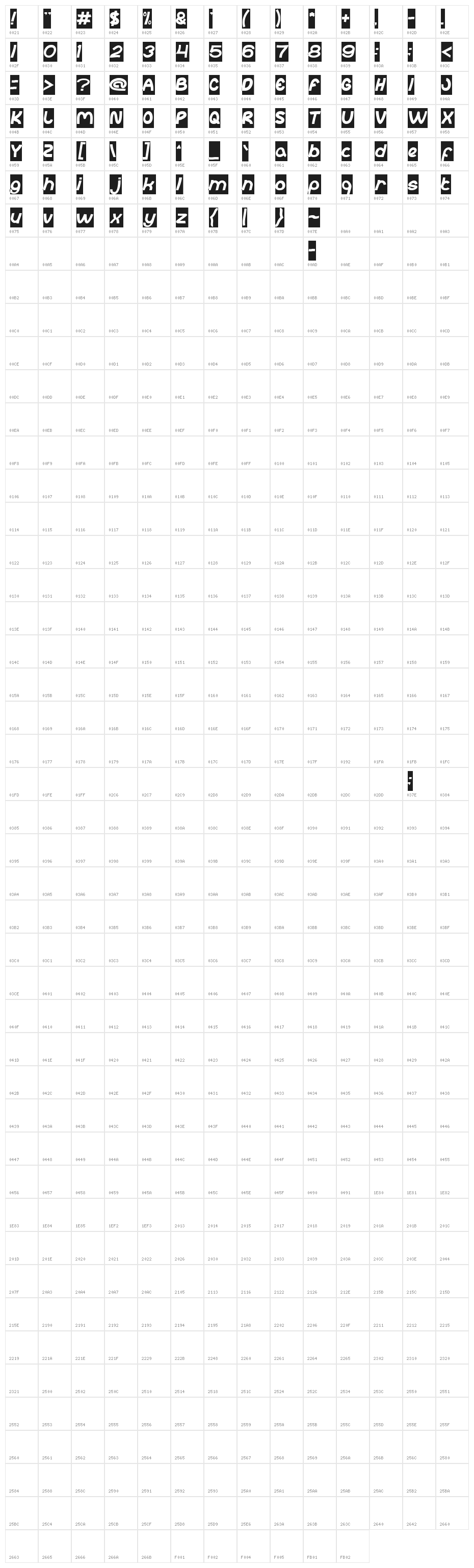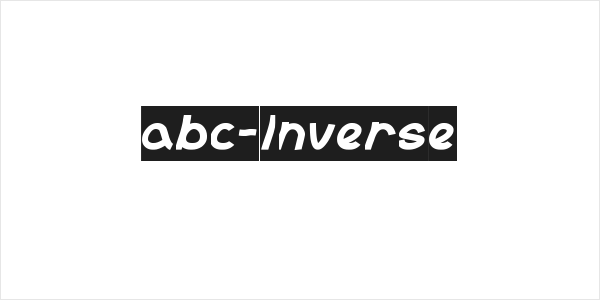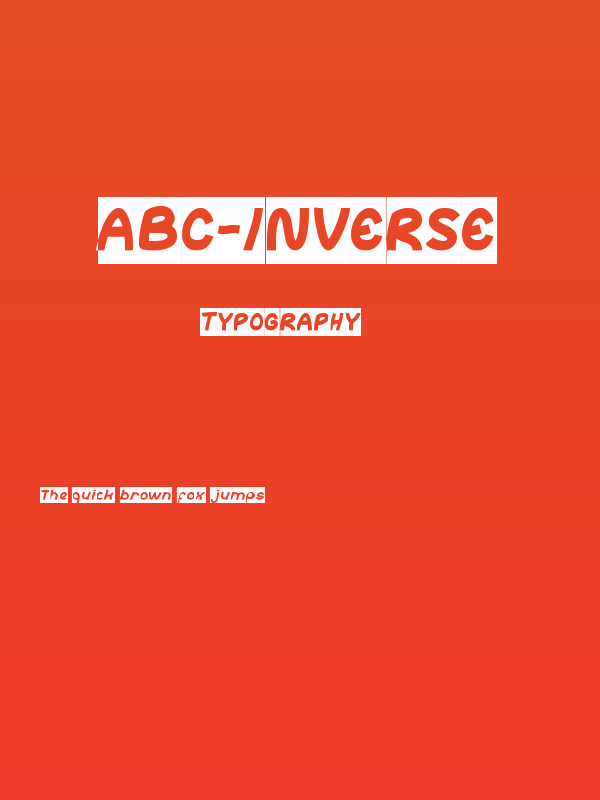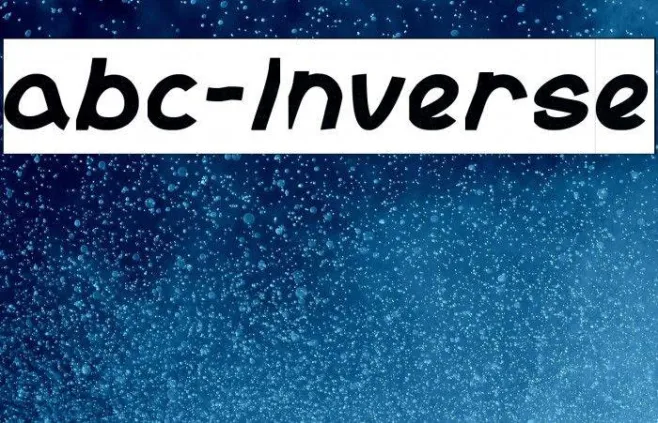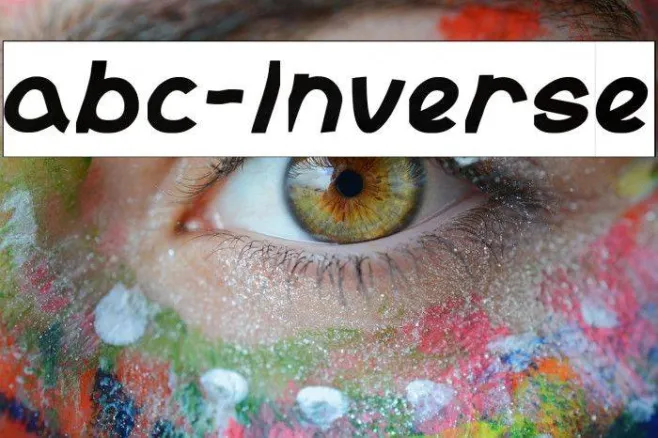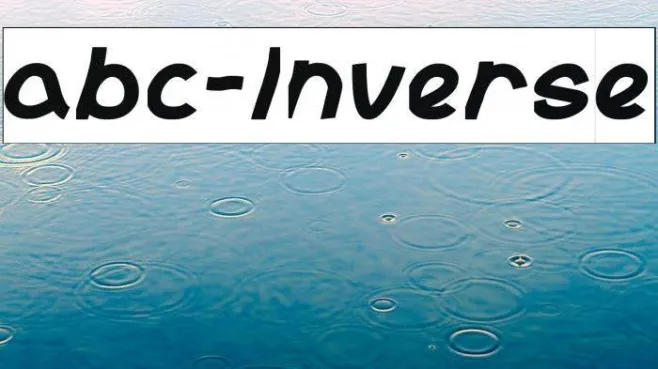
abc-Inverse Font
abc-Inverse Description
This font features a bold and dynamic style with a playful, energetic flair. The characters are designed with a slight slant, giving them a sense of movement and liveliness. The strokes are thick and consistent, providing a strong visual impact. The rounded edges and smooth curves add a friendly and approachable feel, making it suitable for creative and informal projects. The uppercase and lowercase letters maintain a cohesive look, while the numerals and special characters are crafted to match the overall aesthetic. This font is ideal for projects that require a bold statement and a touch of fun.
| Overall Style | Playful, Energetic |
| Proposed Projects | Great for posters, children's books, logos, and playful branding. |